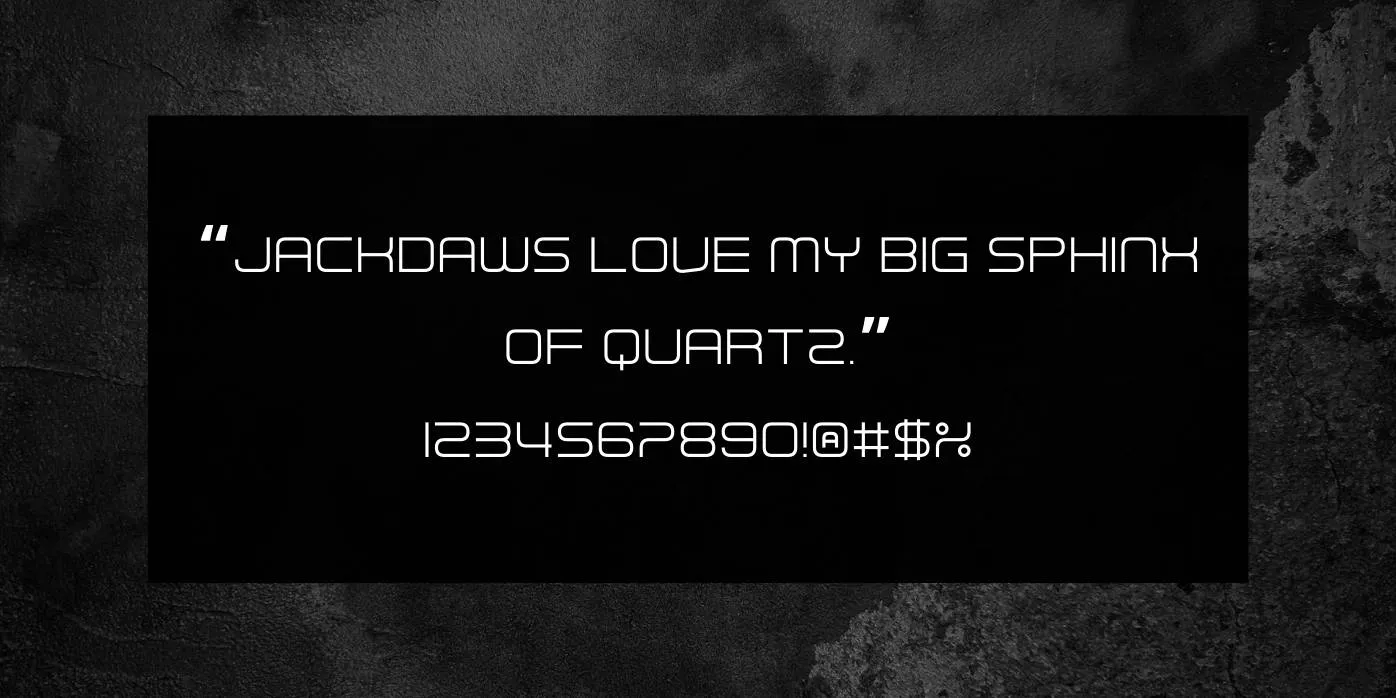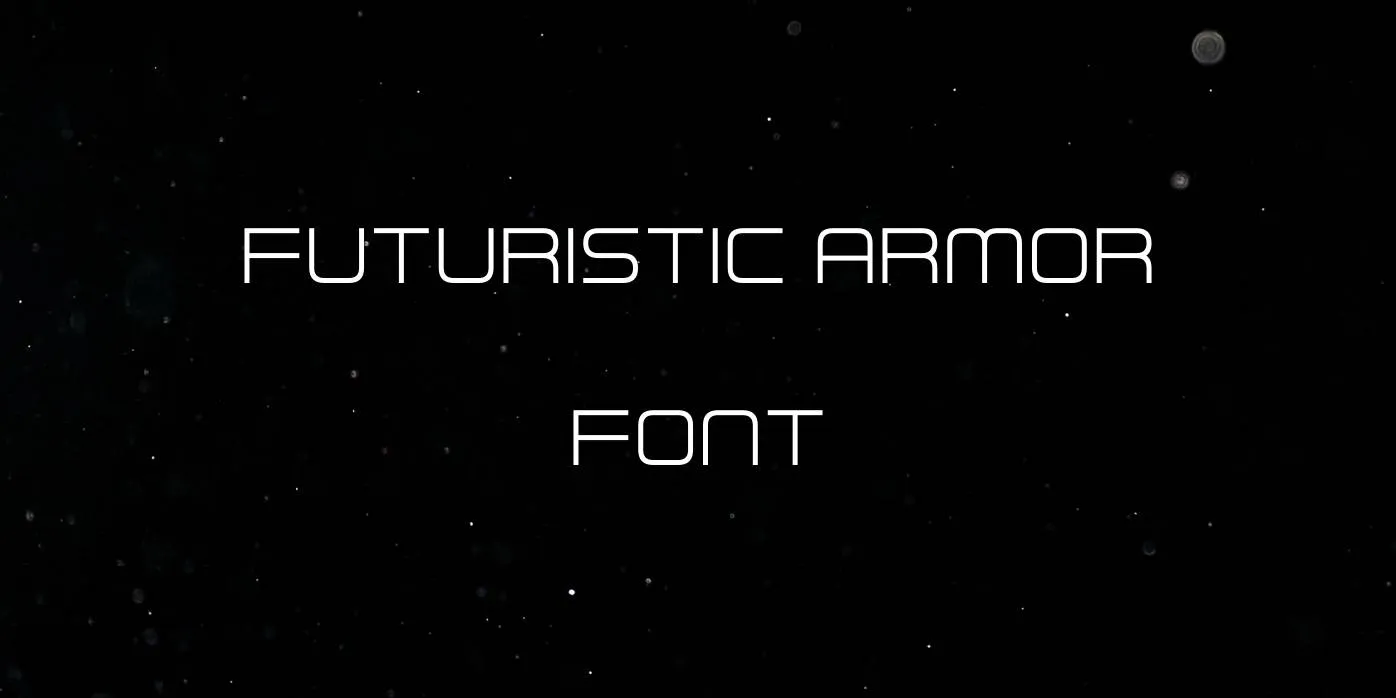
Futuristic Armor Font
Futuristic Armor Font is a sans-serif typeface created by Jonathan Barnbrook in 1999. The design is based on the lettering used on military aircraft and vehicles. This font has been used extensively in advertising and packaging, as well as in movie posters and title sequences. This Font is available in two weights, regular and bold.
It is available in both upper and lowercase letters, as well as numbers and a few special characters. The font is easily utilized in some of the famous adobe applications as well as in the CSS. This Font is not currently available for licensing. This Font was created by Jonathan Barnbrook, who is also the designer of the popular bodoni font.
It has been used extensively in advertising and packaging, as well as in movie posters and title sequences.